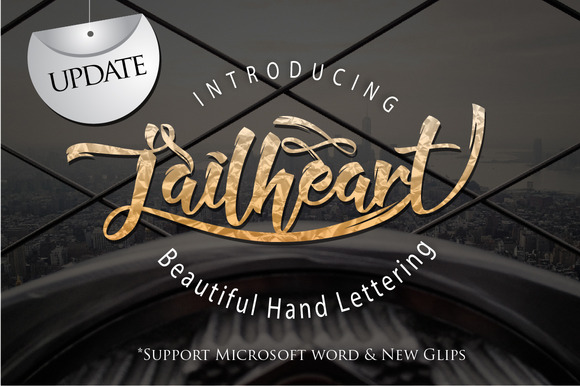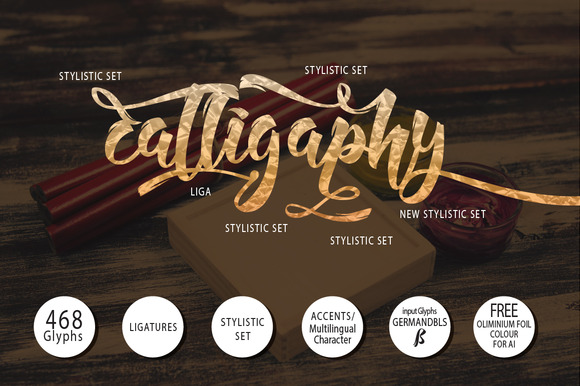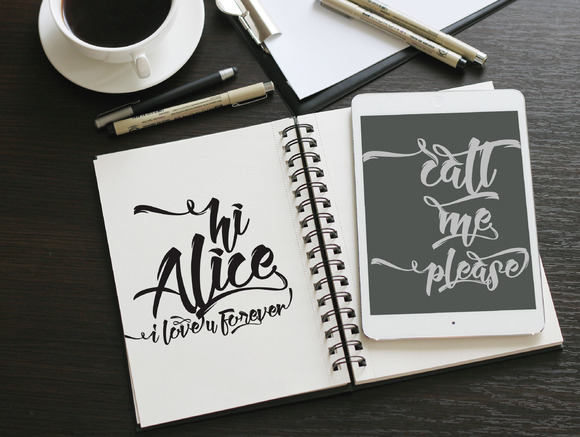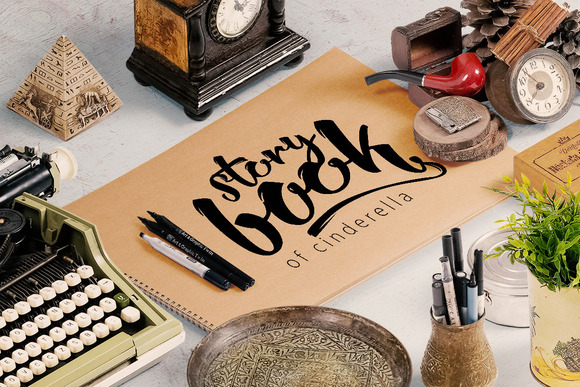
Jailheart Font
About Jailheart Font
Jailheart is a beautiful hand lettering typeface that comes with a set of Beautiful extras.  It can be used for various purposes such as headings, logos, invitations, t-shirt designs, greeting cards, posters, labels, book covers, brochures, and much more!